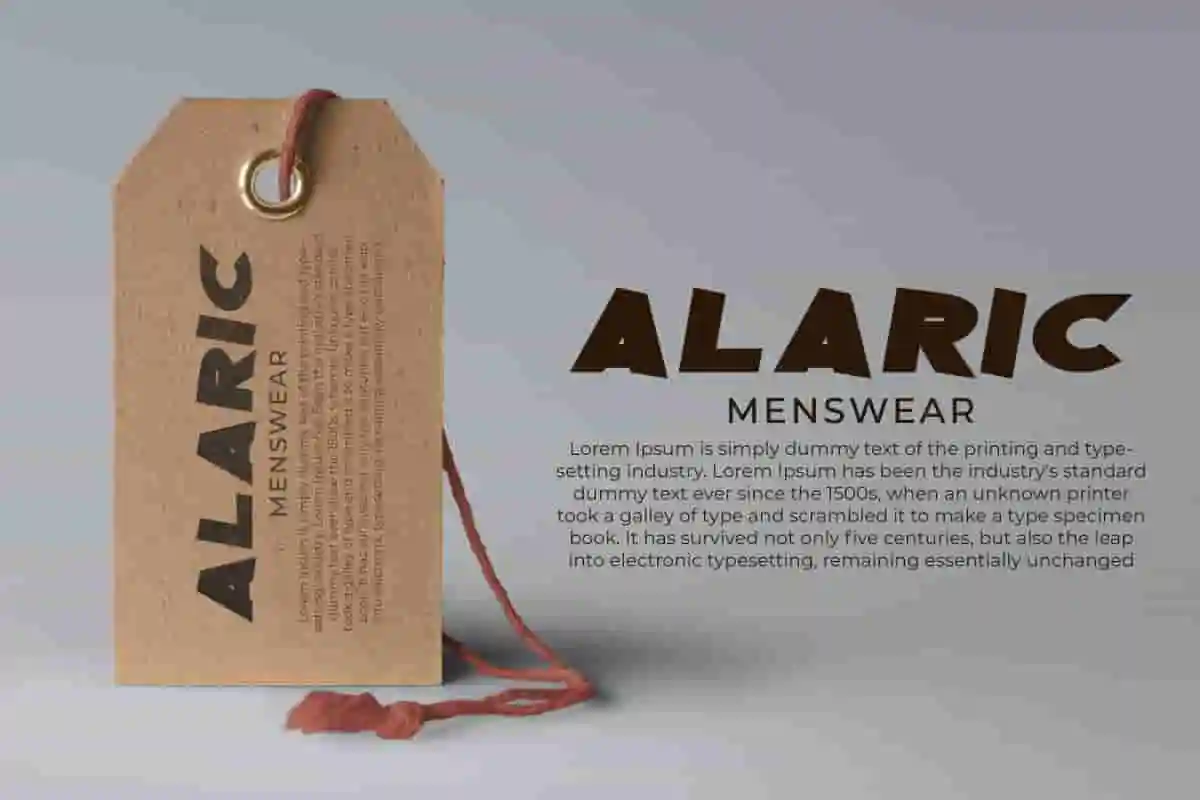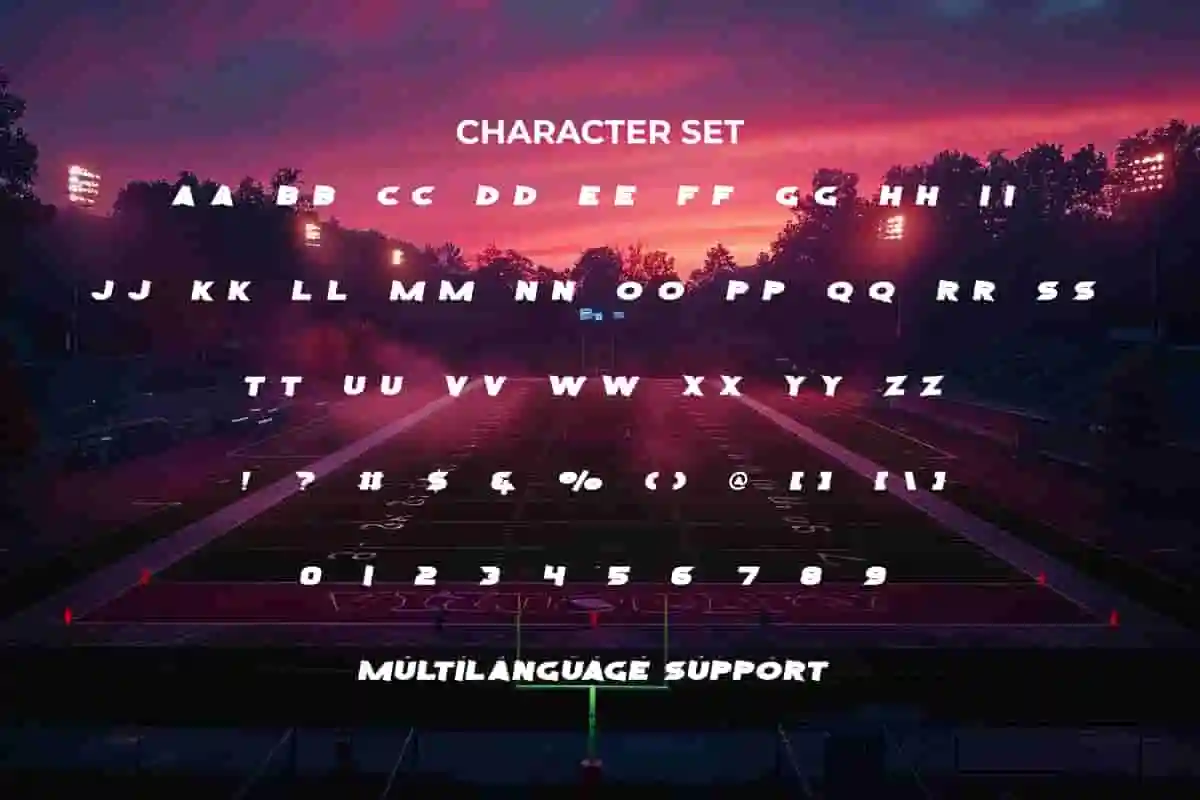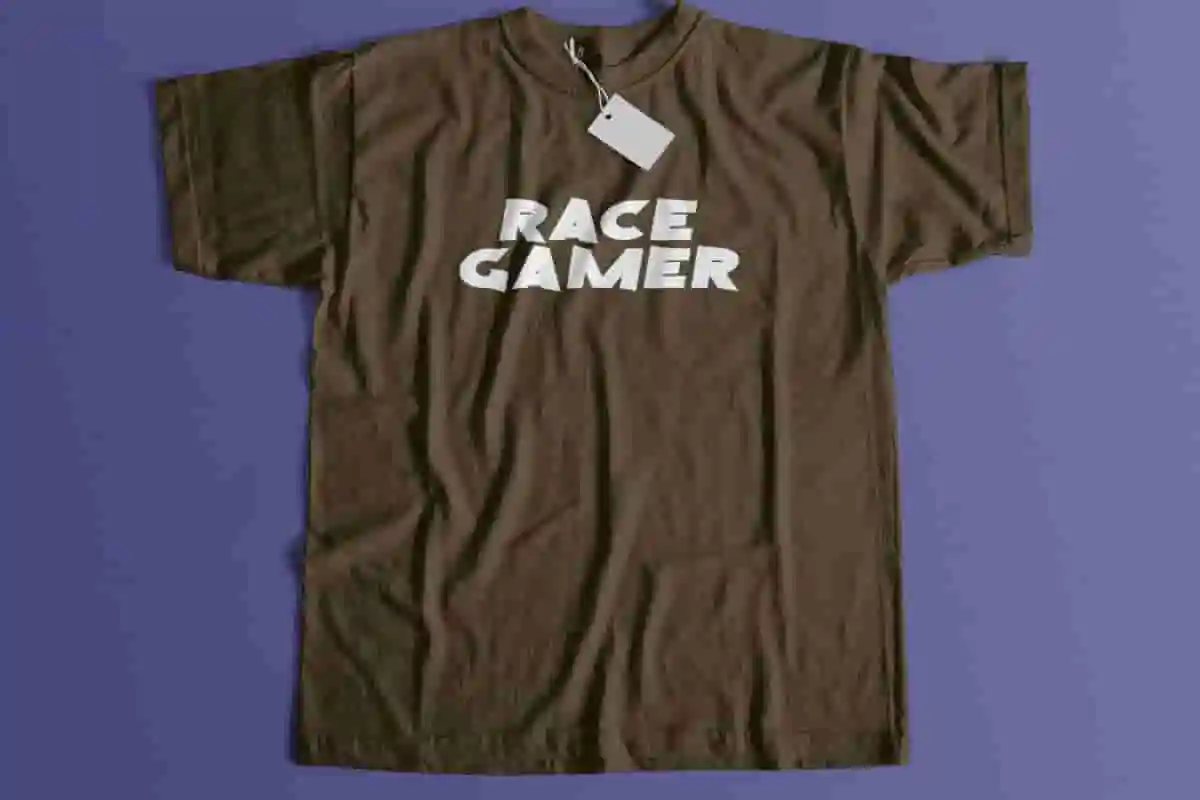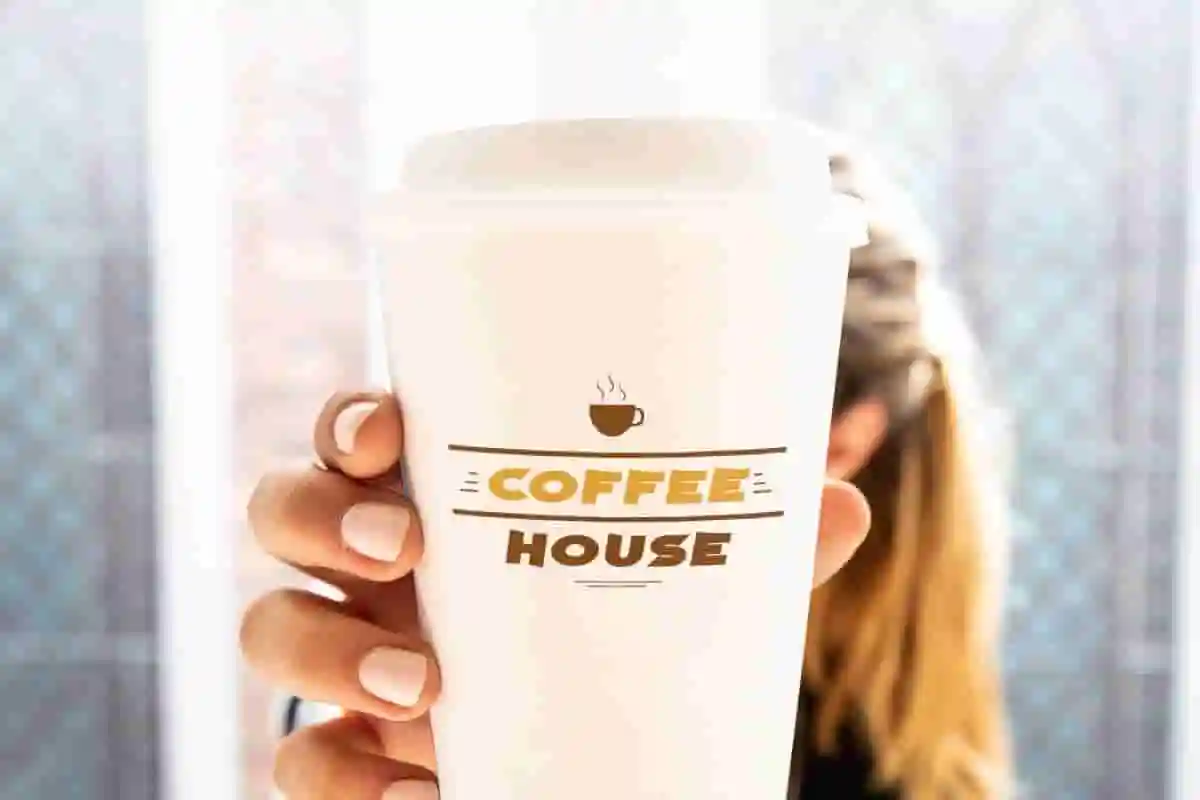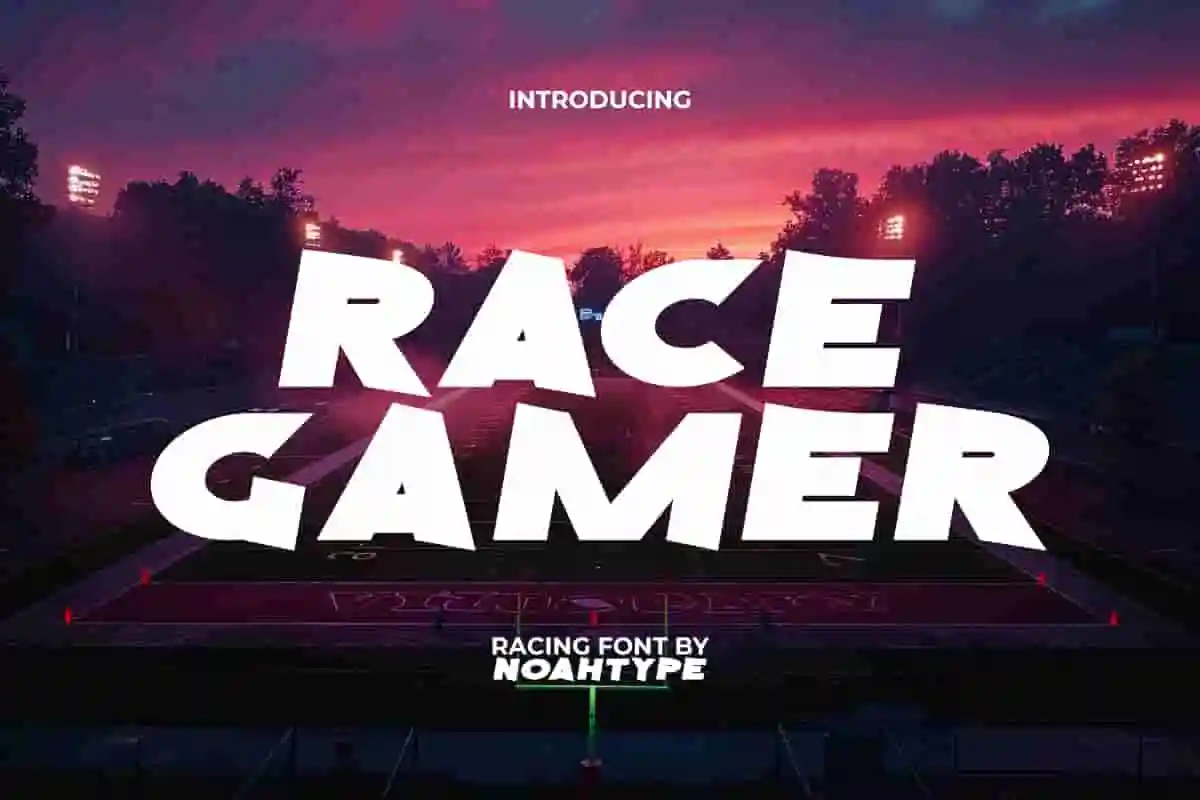
Race Gamer Font is a bold and playful racing display font, created by NoahType. This font has a style that can be paired with other font types and the characters are clearly readable. It will be good for any designs, such as billboard, brand image, custom design, invitation, label, marketing material, menu, poster, product packaging, quotes, signage, stationery, web, and many more!
Race Gamer Font includes a complete set of ALL CAPS for Uppercase and Lowercase Basic Characters, Numerals, Punctuation, and Symbol. This display with racing themed font really does have a cool graffiti street art look to it and would be a perfect choice for many industries, such as accessories, advertising, automotive, event or festival, fashion, game, printing, publishing, sports, travel, etc.